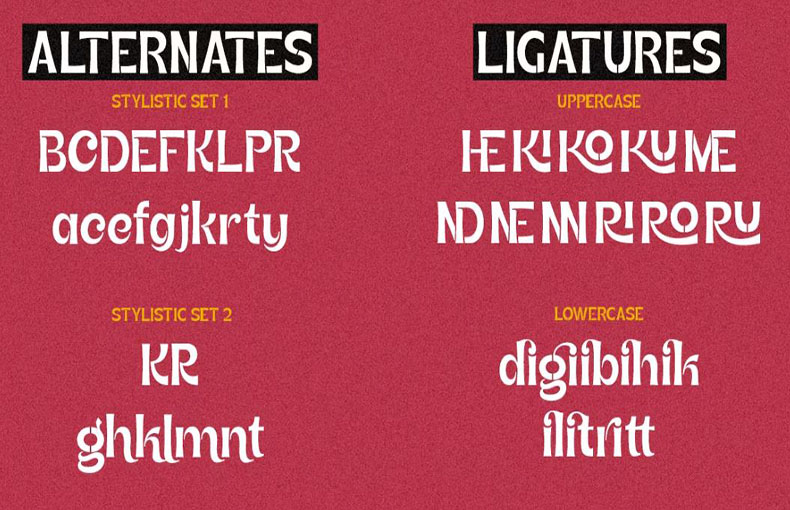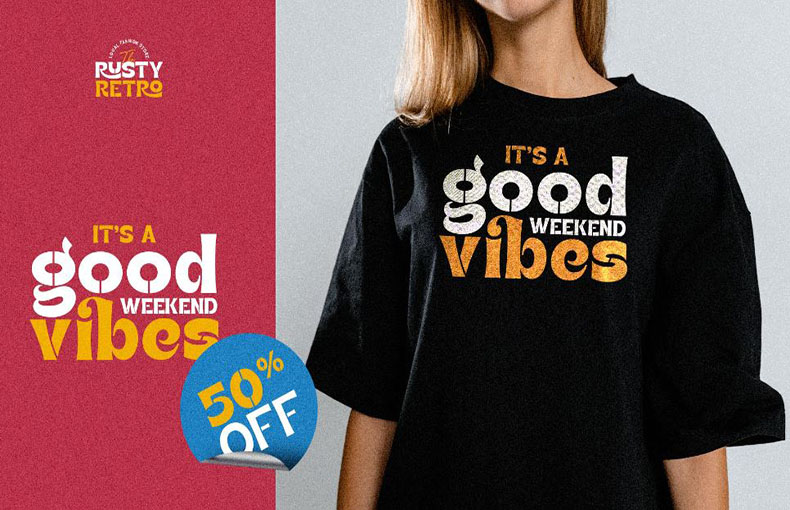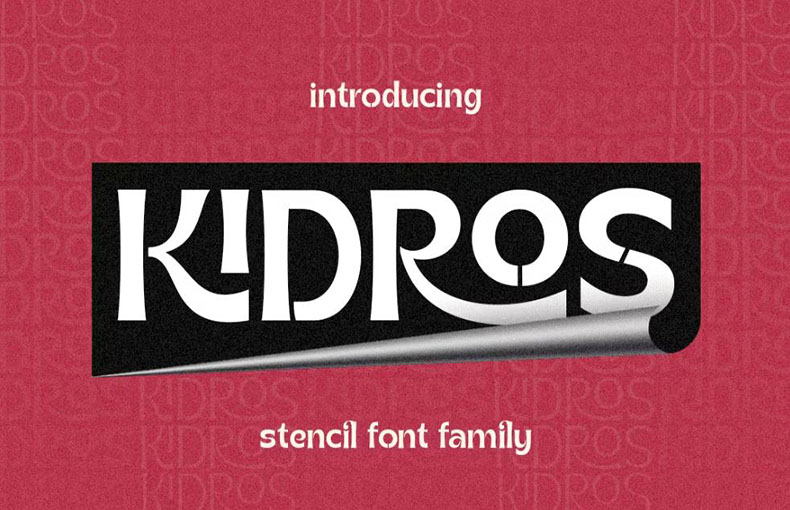
Kidros Font is a fancy display typeface designed with a sans serif concept that has a retro, vintage display stencil style. It was designed and shared by Alit Design.
Irregular but impressively regular and unique dynamic shapes make the font “KIDROS” stand out and steal attention. It is very easy to use both in design and non-design programs.
This amazing typeface is for header and description text, ranging from thin to heavy and thin. In the poster preview, all the characters are written in the KIDROS character.
Kidros typeface can be found in a single weight along with True Type features. This single weight contains 128 unique glyphs and 2 ligatures. Moreover, it also supports 34 global languages.
| Style: | Retro, Fancy, Stencil |
| Font Designer: | Shaped Fonts |
This display font family is perfect for creating a variety of designs such as posters, murals, social media posters, headers, titles, banners, wall murals, brochures, headers, titles, YouTube thumbnails, advertisements, gaming cards, banners, flyers, and headers, and animated techno logos.
Kidros Font is a sans-serif font with a retro, vintage, and strong style. It is designed with irregular dynamic shapes, but it is still impressively regular and unique. This makes it stand out from other sans-serif fonts and steal attention.
Kidros Font can be used for a variety of design projects, such as posters, logos, branding, and social media graphics. It is also a good choice for short blocks of text in print designs, such as flyers and brochures.